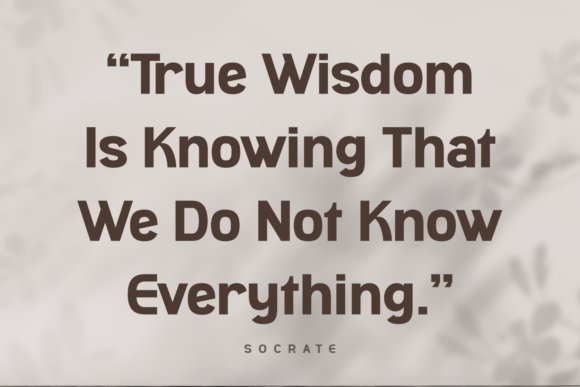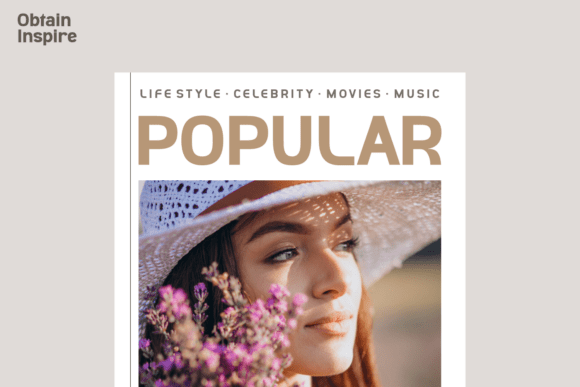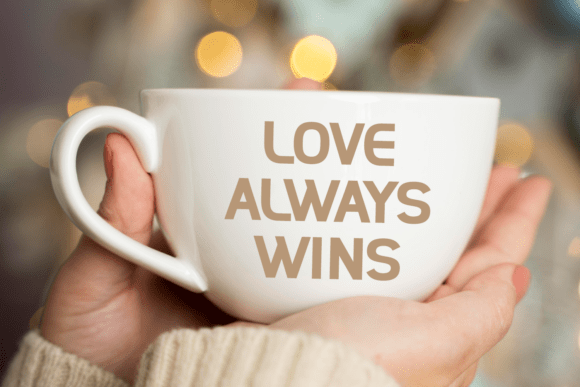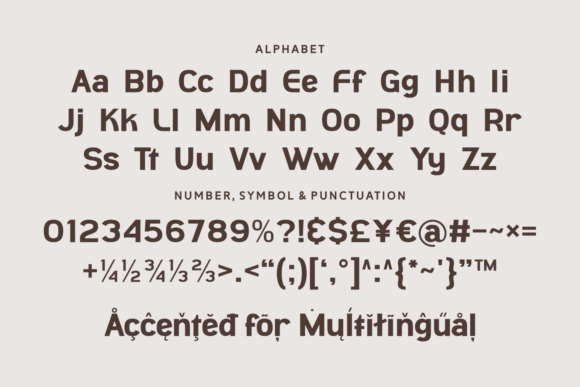
Introduction to Obtain Inspire Font
Obtain Inspire is a modern sans serif typeface designed for clarity, style, and versatility.
Its clean lines and slightly rounded corners offer a contemporary, approachable look while maintaining a professional tone This font is perfect for branding, web design, business presentations, editorial layouts, and minimalist product packaging.
Key Features of Obtain Inspire Font
Why Choose Obtain Inspire Font?